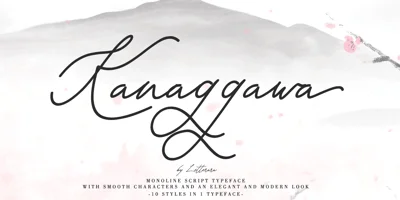
Kanaggawa Font
This flowing script font is perfect for Japanese-inspired branding, cultural heritage designs, zen meditation marketing, traditional tea ceremony promotions, Japanese restaurant signage, cultural festival materials, mindfulness retreat brochures, and serene design projects that honor Japanese aesthetics and peaceful tranquility.
Kanaggawa Font is exciting because it embodies Japanese serenity with its graceful letterforms that flow like calligraphy brushstrokes on rice paper. The font delivers cultural sophistication while maintaining harmonious readability that captures the essence of Japanese design philosophy and mindful beauty.
The Kanaggawa Font family includes regular and ornamental versions with Japanese-inspired decorative elements, zen symbols, and cultural ornaments, providing designers with comprehensive tools for creating tranquil typography that honors Eastern wisdom.
Ready to embrace Japanese tranquility? Kanaggawa Font offers designers flowing letterforms that breathe with zen elegance and cultural sophistication. This peaceful typeface combines Japanese aesthetics with professional functionality, making it ideal for cultural institutions, meditation centers, and Japanese-inspired brands. Whether you're designing zen retreat materials, Japanese restaurant menus, or cultural exhibition promotions, this font delivers harmonious appeal. The mindfully crafted characters feature flowing balance while maintaining excellent readability across cultural applications. Perfect for businesses in meditation services, Japanese cuisine, cultural education, and wellness practices that celebrate Eastern philosophy and peaceful living. The font's zen construction creates memorable brand recognition that resonates with mindfulness seekers worldwide. Each letter showcases deliberate harmony that mirrors the timeless appeal of Japanese design principles. Download today and cultivate inner peace in your creative projects with this premium script font that transforms ordinary text into extraordinary expressions of cultural beauty and the serene wisdom of Kanaggawa Font tranquility.